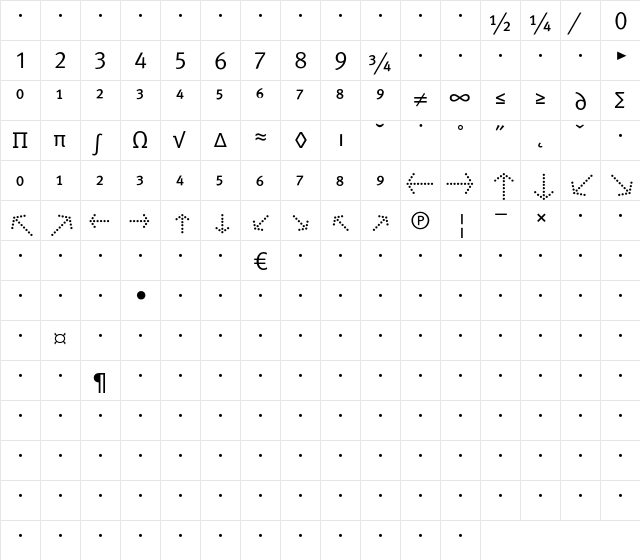
MetaNormalCyr-Expert Regular
Design Context for MetaNormalCyr-Expert Typeface
MetaNormalCyr-Expert takes a measured approach to typography — its balanced proportions and neutral character make it a reliable workhorse for both digital and print work.